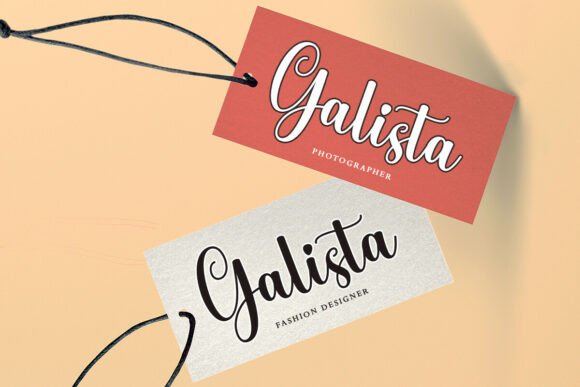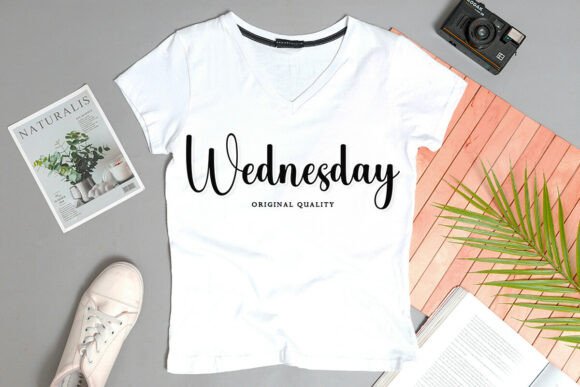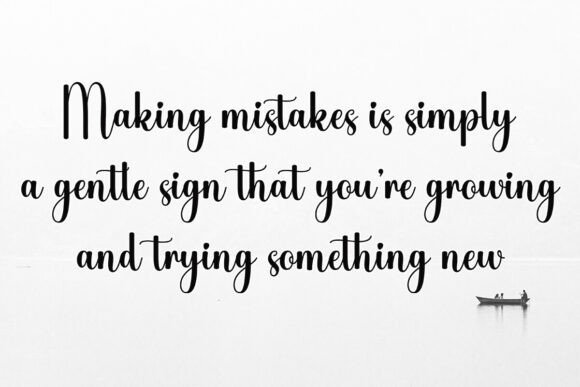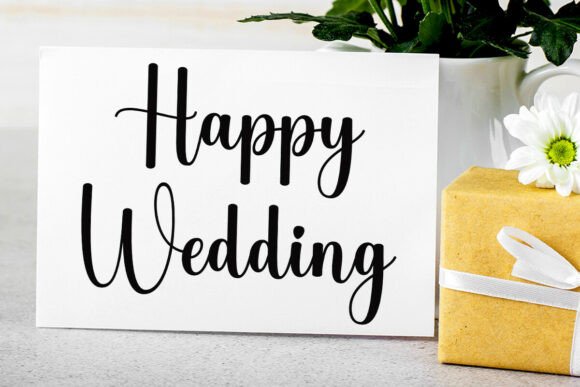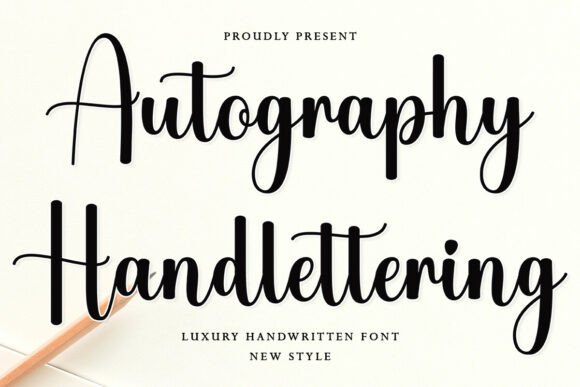
Elevate Your Design with Autography Handlettering Font
In the world of typography, few fonts capture the essence of personal touch and sophistication as effortlessly as the Autography Handlettering font. This luxury script is a masterpiece of modern calligraphy, designed to bring a touch of elegance and refinement to any design project. Whether you’re a designer looking to elevate your branding, a crafty entrepreneur seeking to make your mark, or simply someone who appreciates the beauty of handwritten typography, Autography Handlettering is sure to impress.
The Art of Handlettering
Handlettering is an art form that requires skill, patience, and practice. It’s a way of creating unique and personalized text that conveys emotion and character. The Autography Handlettering font takes inspiration from the natural rhythm of sophisticated penmanship, mimicking the fluid connections and delicate swashes that make handwriting so distinctive. This font is not just a collection of letters and symbols; it’s a tool for designers to create bespoke typography that speaks to their audience.
Luxury and Versatility
One of the standout features of the Autography Handlettering font is its versatility. This luxury script can be used in a variety of design applications, from high-end fashion labels and signature logos to wedding stationery and elegant social media quotes. Its delicate swashes and fluid connections add an air of exclusivity to any design, making it perfect for luxury packaging, perfume branding, and other high-end applications.
Pairing and Usage
Autography Handlettering pairs beautifully with classic serifs, creating a balanced look that’s perfect for editorial design, branding, and advertising. However, it’s also stunning on its own, making it an excellent choice for designers who want to create a bold statement. With this font, you can add a touch of sophistication to your designs, whether you’re working on a logo, a brochure, or a social media campaign.
One of the most convenient features of the Autography Handlettering font is its PUA (Private Use Area) encoding. This means that all special characters and decorative elements are easily accessible without the need for additional software. Designers can simply access the font’s extensive character set, including swashes, ligatures, and alternates, to create unique and personalized typography.
Whether you’re a professional designer or a crafty entrepreneur, the Autography Handlettering font is an excellent addition to your toolkit. Designers can use it to create stunning branding, packaging, and advertising campaigns, while crafters can use it to add a personal touch to their DIY projects, such as wedding stationery, party invitations, and handmade crafts.
Tips for Using Autography Handlettering
- Use it sparingly: Autography Handlettering is a luxury script that’s best used sparingly to create a lasting impression.
- Experiment with pairings: Try pairing Autography Handlettering with classic serifs or sans-serifs to create a unique look.
- Play with swashes: Use the font’s extensive swash collection to add a touch of personality to your designs.
- Don’t be afraid to get creative: Autography Handlettering is a versatile font that can be used in a variety of design applications.
In conclusion, the Autography Handlettering font is a luxury script that captures the essence of personal touch and sophistication. With its delicate swashes, fluid connections, and PUA encoding, this font is perfect for designers and crafters looking to elevate their designs. Whether you’re working on a high-end fashion label, a wedding stationery project, or a social media campaign, Autography Handlettering is sure to impress. So why not give it a try and see how it can add a touch of elegance and refinement to your designs?